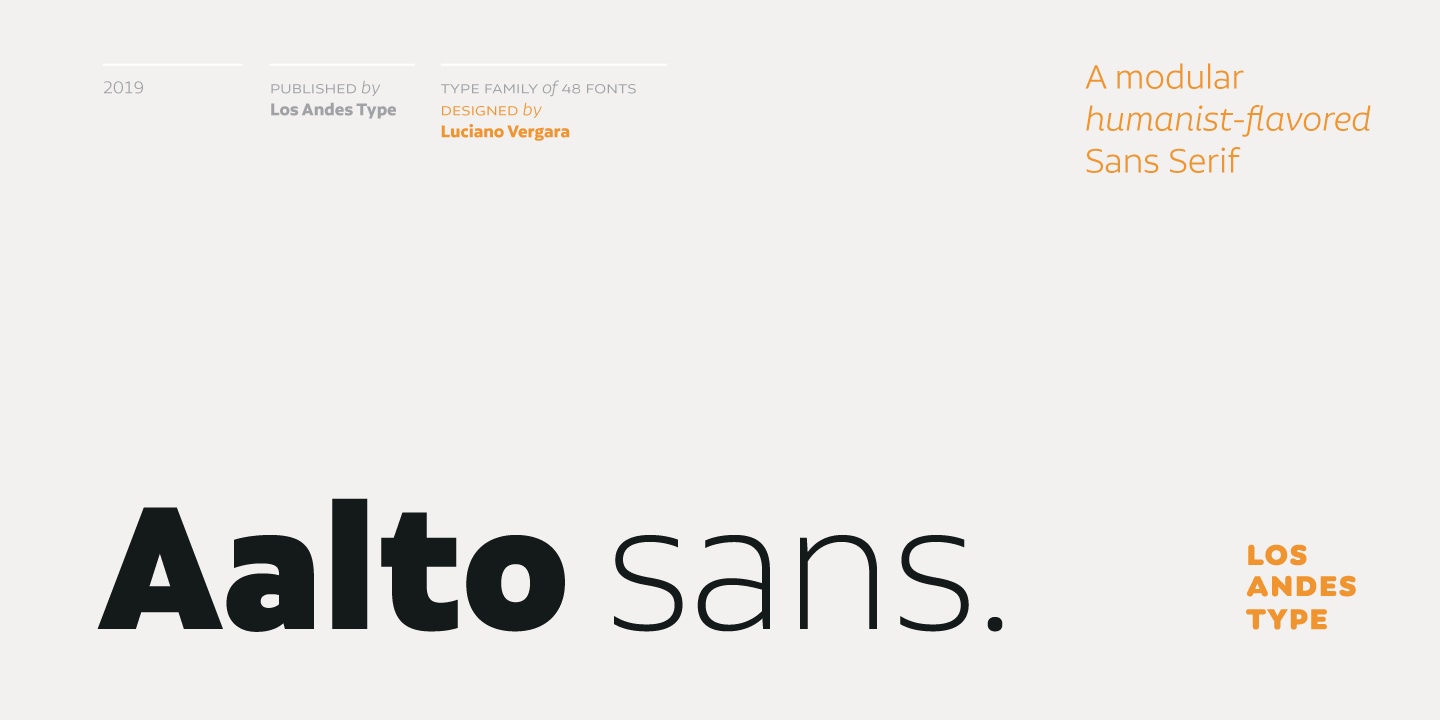
Aalto Sans Font
Aalto Sans Font is perfect for architectural firm branding, contemporary design studios, modernist furniture companies, Scandinavian lifestyle brands, minimalist product packaging, high-end technology interfaces, progressive educational institutions, and sophisticated cultural venues. This elegant typeface excels in applications where architectural sophistication and design excellence are essential for creating refined and innovative brand experiences that celebrate modernist principles.
What makes Aalto Sans Font truly exciting is its masterful embodiment of architectural modernism and Finnish design philosophy that captures the visionary spirit of legendary architect Alvar Aalto. The font features clean, geometric letterforms with subtle organic curves and harmonious proportions that mirror the sophisticated balance of functionality and beauty found in modernist architecture. Its refined personality and architectural character create an immediate sense of design excellence and innovative thinking that resonates with audiences seeking authentic modernist aesthetics and timeless design quality. The typeface's architectural heritage and design sophistication make it perfect for brands wanting to convey innovation, craftsmanship, and connection to the enduring principles of modernist design movement.
The Aalto Sans Font family includes comprehensive weight range from Thin to Black, complemented by matching italic versions that enhance its architectural versatility. The font offers extensive OpenType features including multiple figure styles, architectural symbols, and broad multilingual support for international design markets. Additional stylistic sets and geometric elements provide designers with sophisticated tools for creating modernist brand systems and architectural communication solutions.